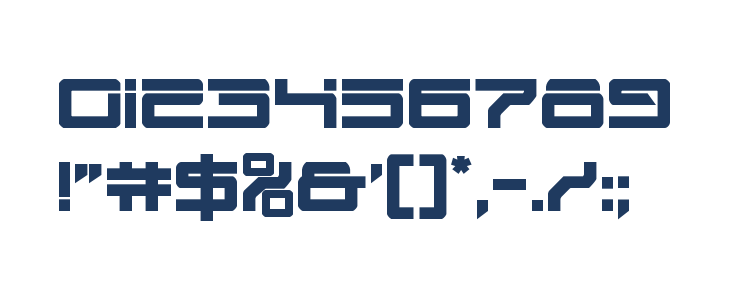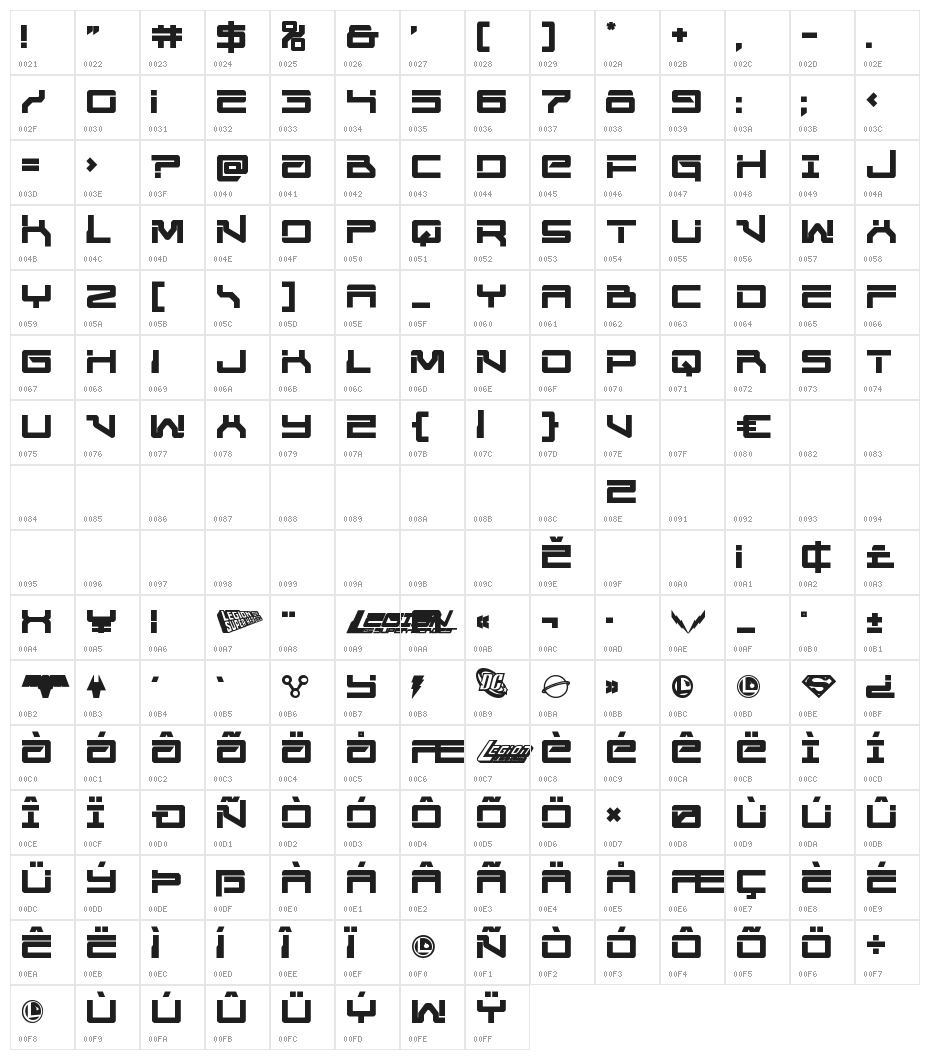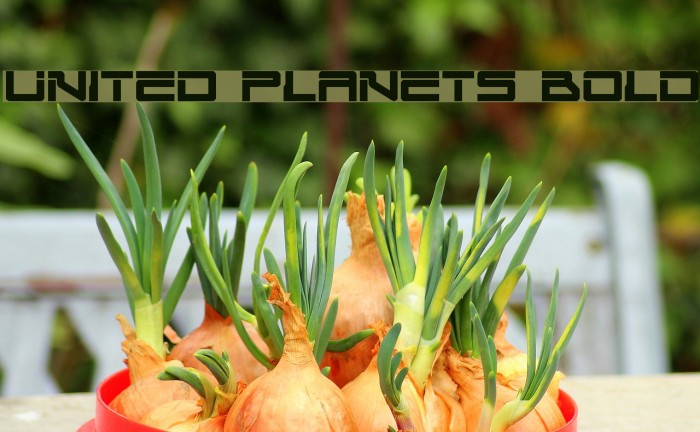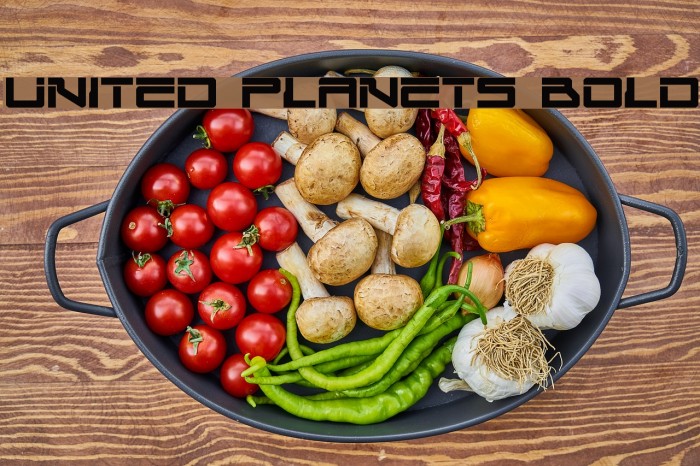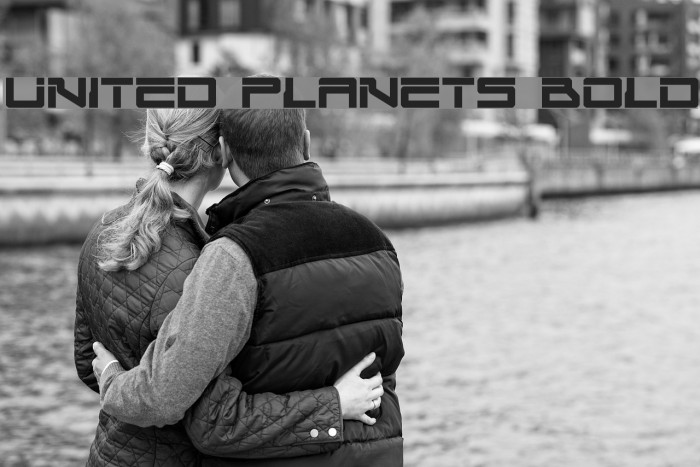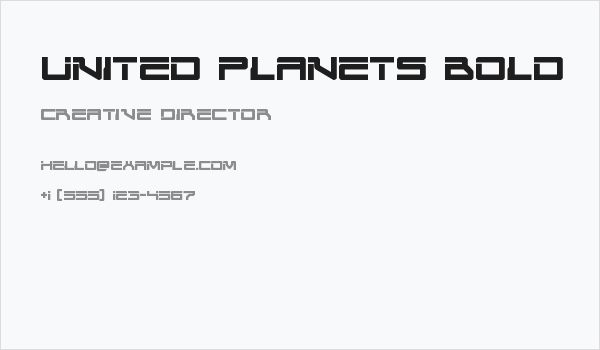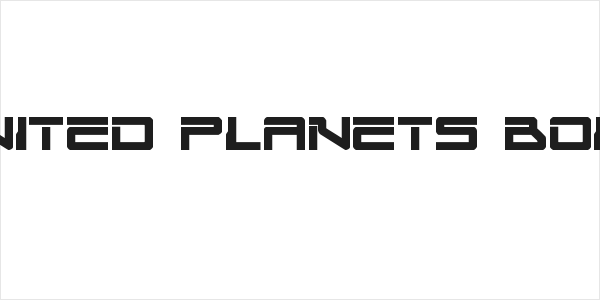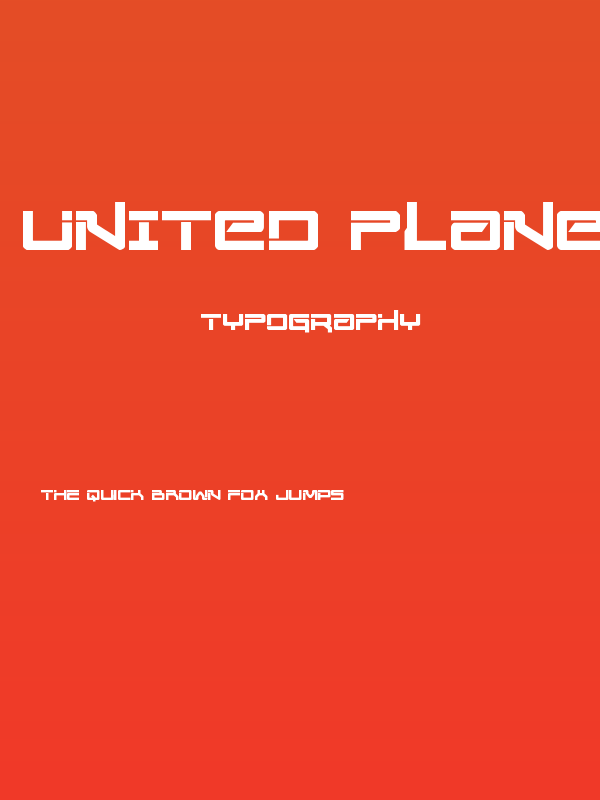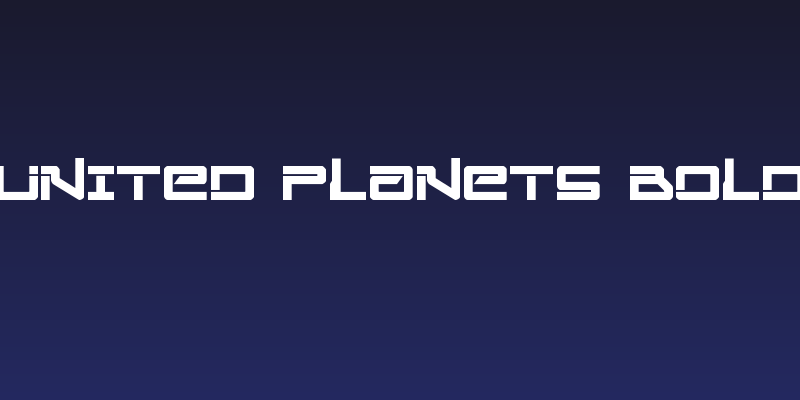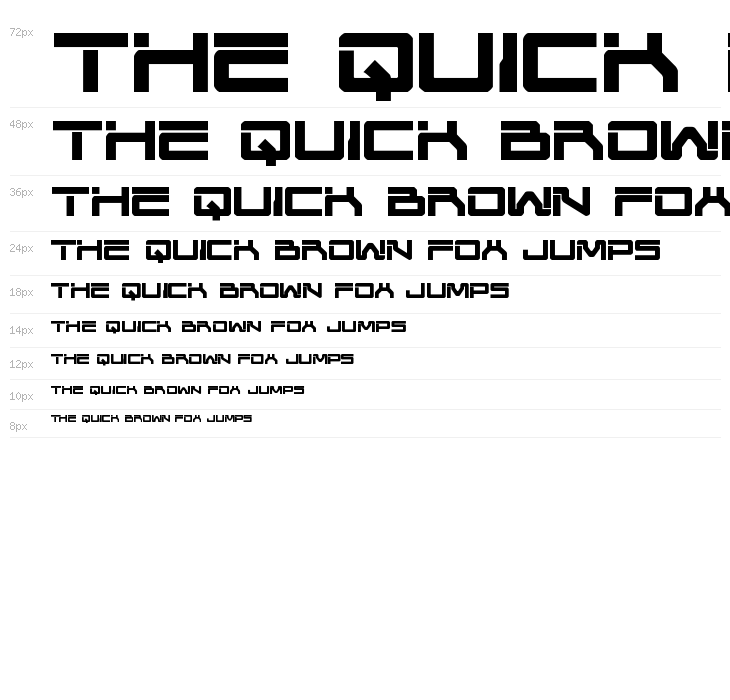
United Planets Bold Font
United Planets Bold Description
This font features a bold, futuristic design with a geometric structure. The characters are constructed with sharp angles and straight lines, giving it a modern and technological feel. The uppercase and lowercase letters maintain a consistent height, enhancing its uniform appearance. The numerals and special characters are designed to match the angular style, ensuring a cohesive look across all text. This font's unique style makes it ideal for projects that require a strong, contemporary aesthetic.
| Proposed Projects | Ideal for technology branding, sci-fi themed designs, video game interfaces, and modern posters. |